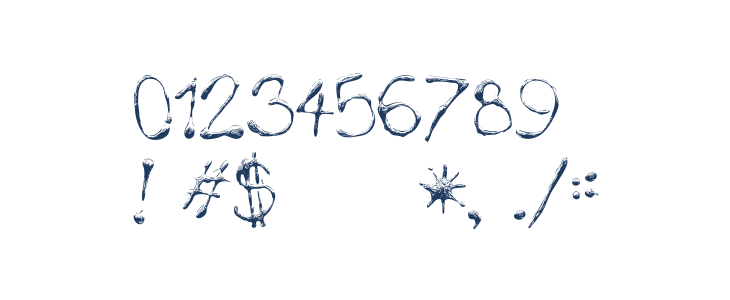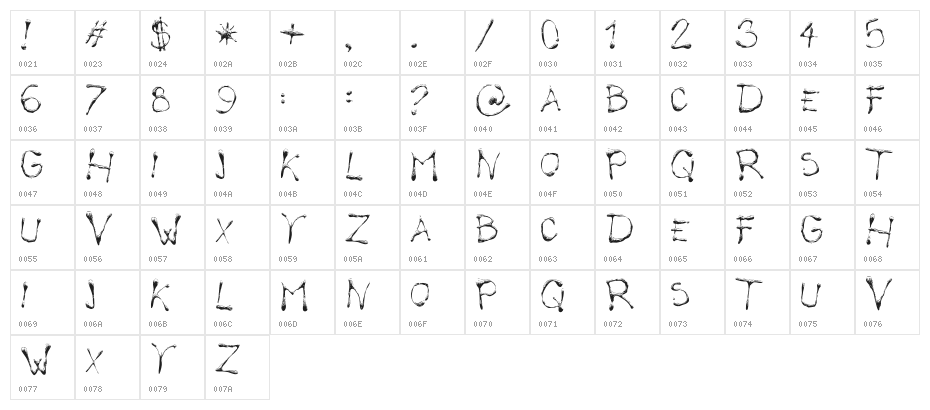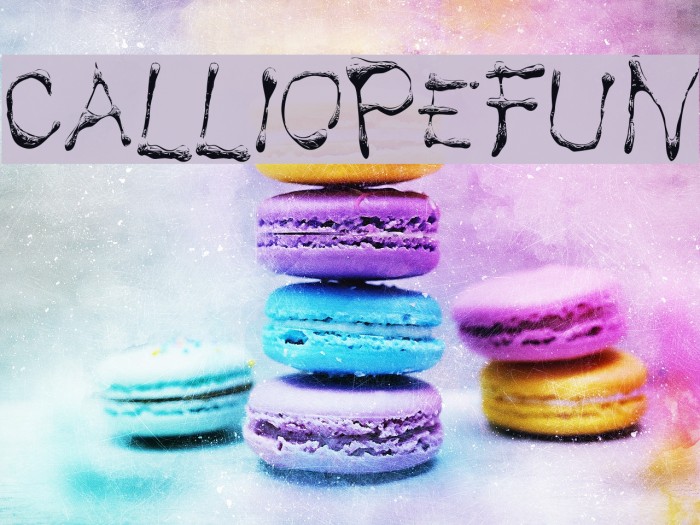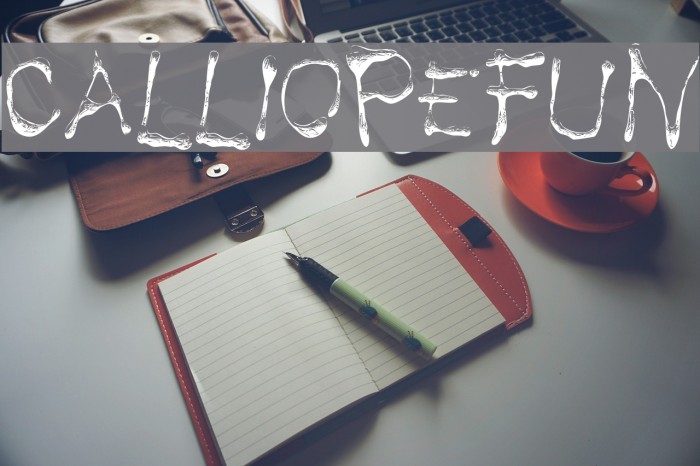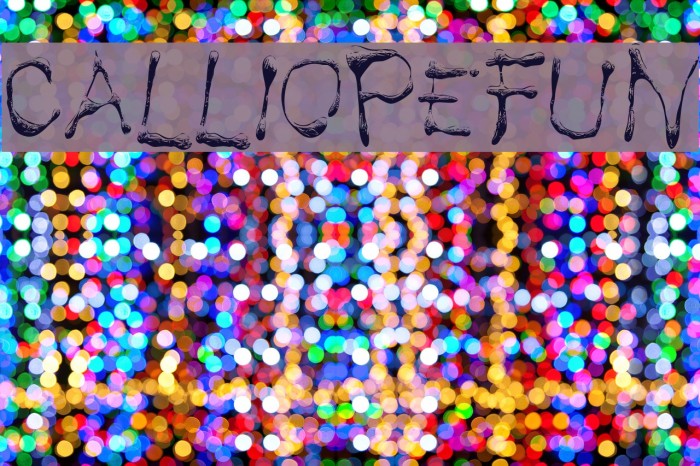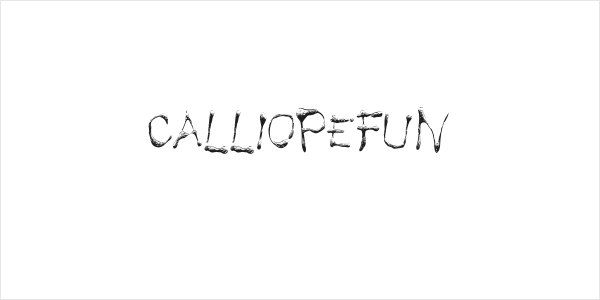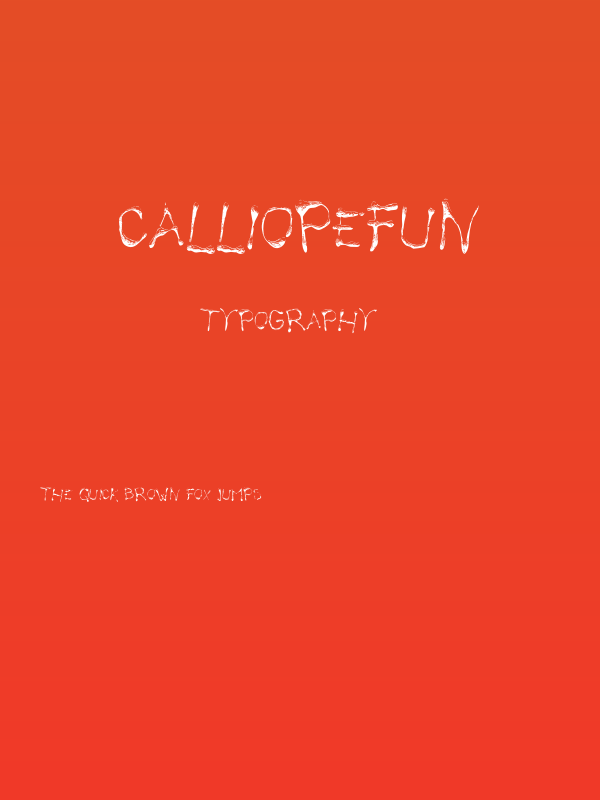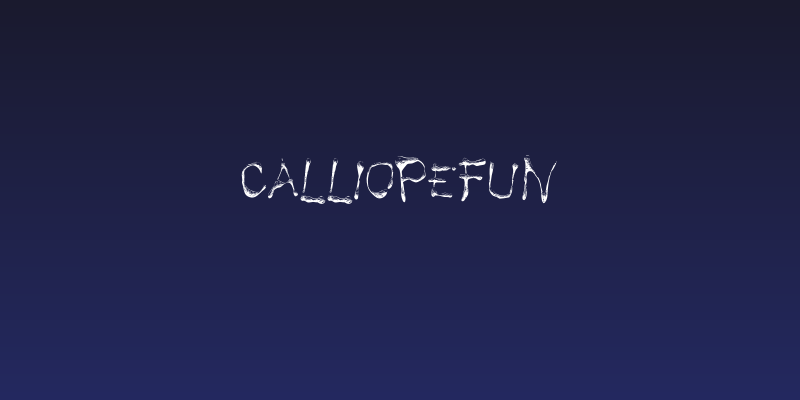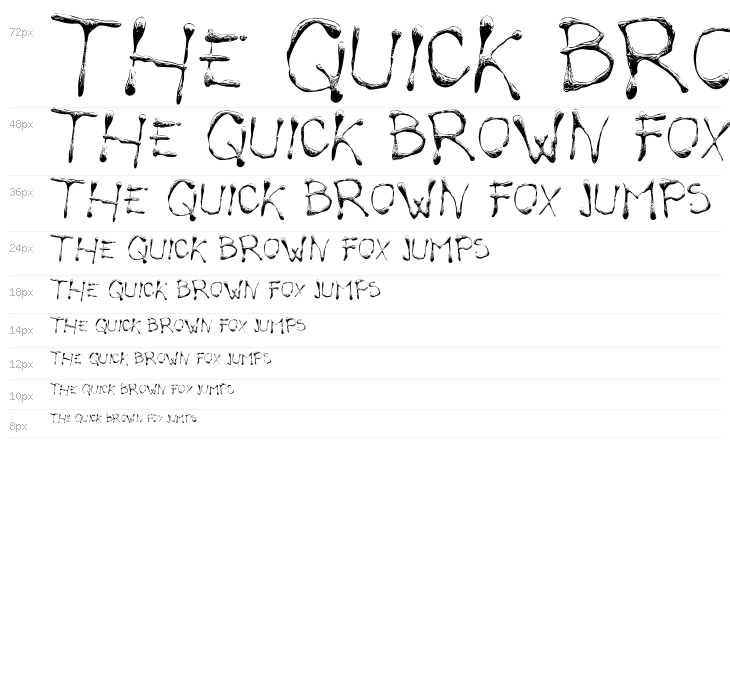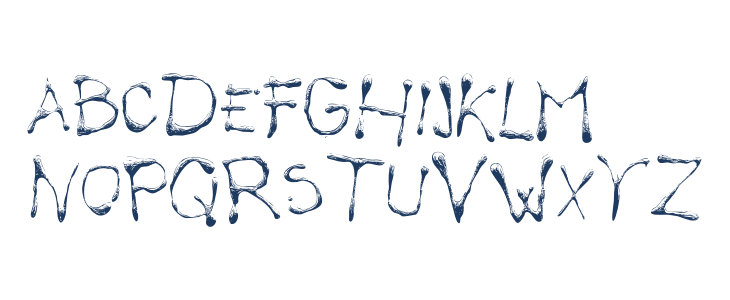
Calliopefun Font
Calliopefun Description
This font features a highly decorative and artistic style, reminiscent of organic, fluid forms. Each character appears to be crafted with a brush-like texture, giving it a unique, hand-drawn appearance. The strokes vary in thickness, creating a dynamic and expressive look. The overall design is playful and whimsical, with a sense of movement and flow. The characters are slightly irregular, adding to the handcrafted feel. This font is ideal for creative projects that require a touch of artistic flair and individuality.
| Use Case | Headlines, Logos, Artistic projects |
| Proposed Projects | Ideal for artistic projects, posters, album covers, and creative branding that require a unique and expressive touch. |